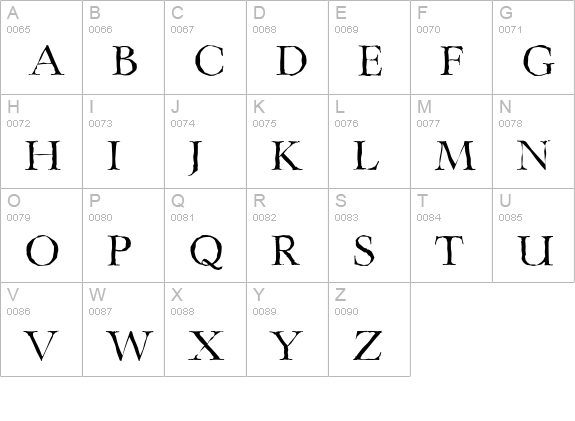
LingwoodAntique-Regular is the standard, neutral variant in the LingwoodAntique typeface family \xE2\x80\x94 well suited to general body text, paragraphs, and standard typographic work.
LingwoodAntique-Regular is a timeless and elegant font that exudes a sense of sophistication and charm. Its delicate serifs and graceful curves give it a classic and refined look that is perfect for adding a touch of vintage flair to your designs. This font is versatile and can be used for a variety of projects, from invitations and greeting cards to logos and branding. Its versatility makes it a great choice for designers looking for a font that can effortlessly elevate their work. And the best part? LingwoodAntique-Regular is available for free download at FontsMarket.com. So go ahead and enhance your designs with this beautiful font today!